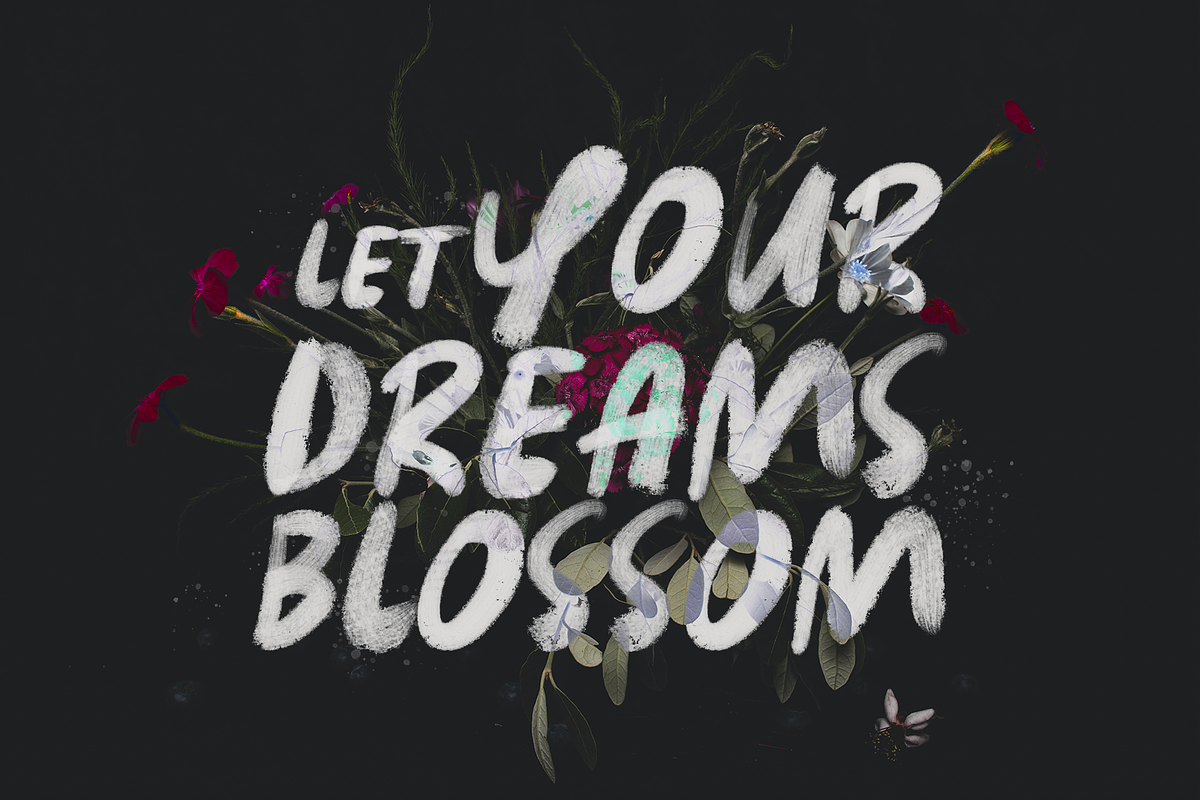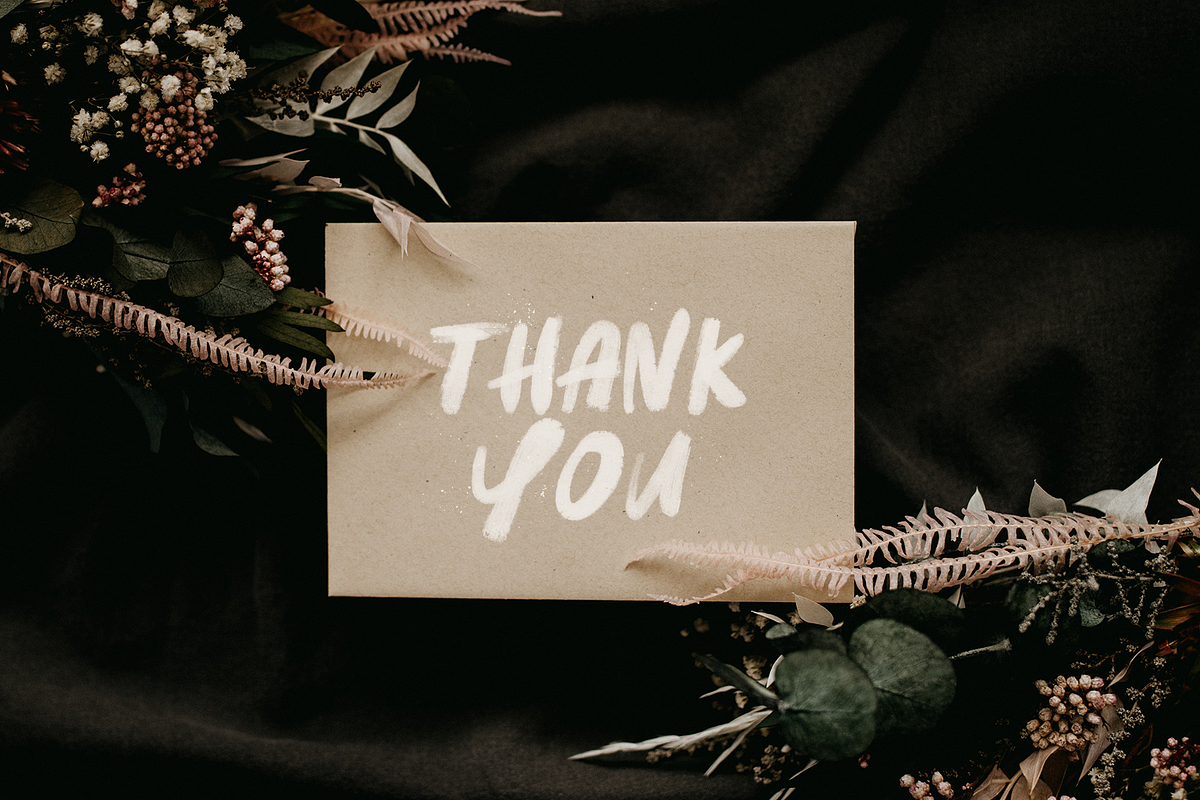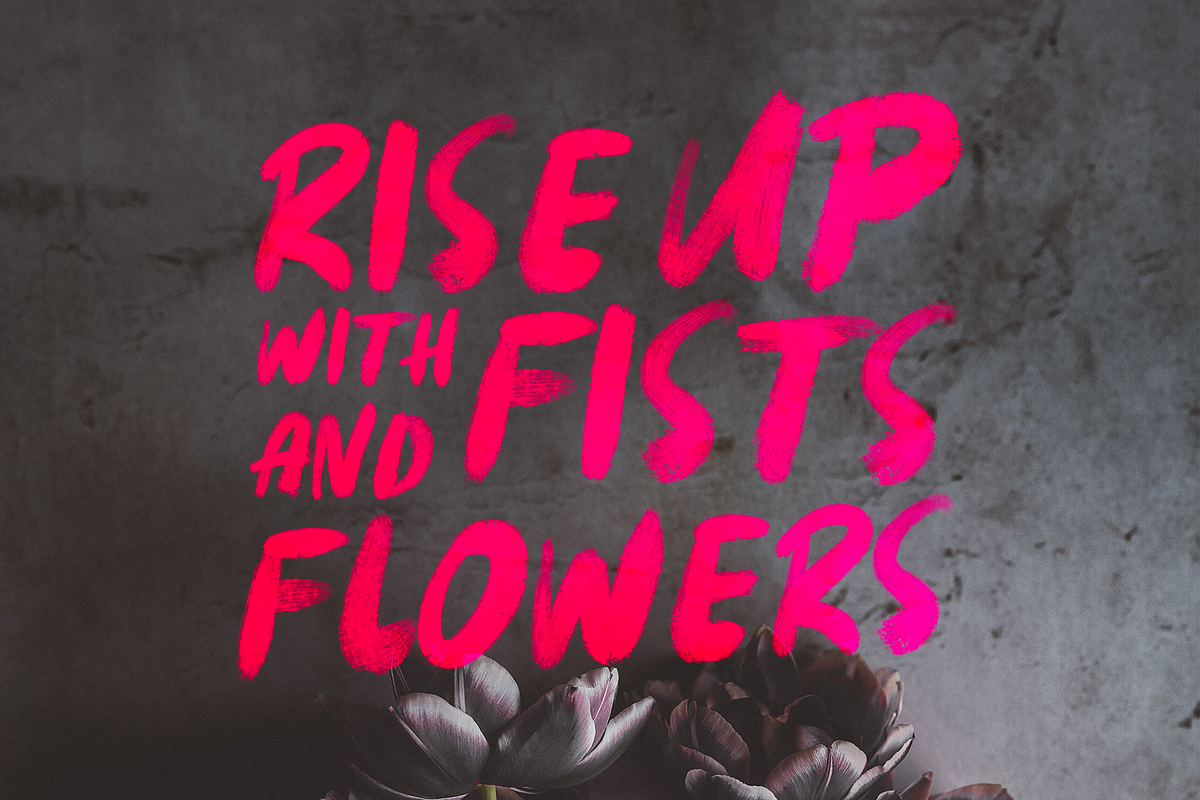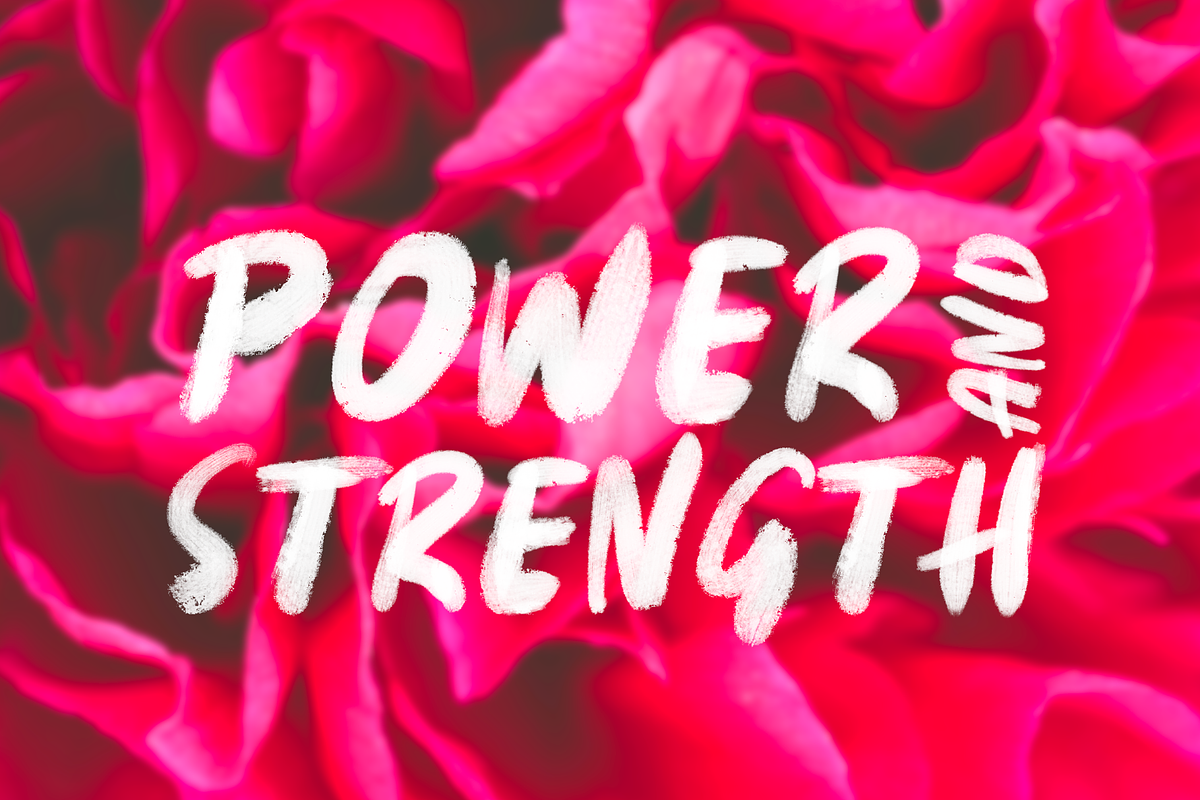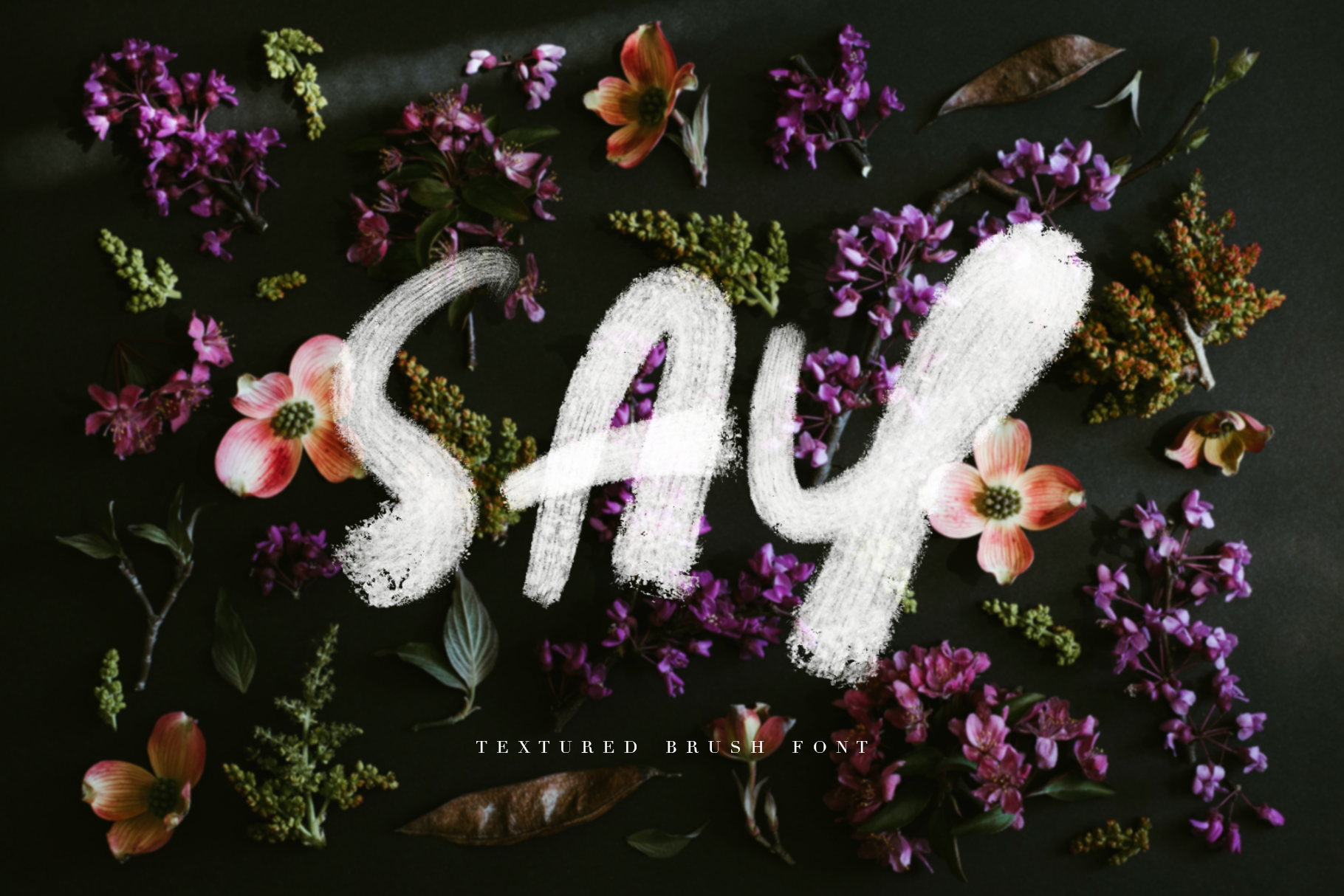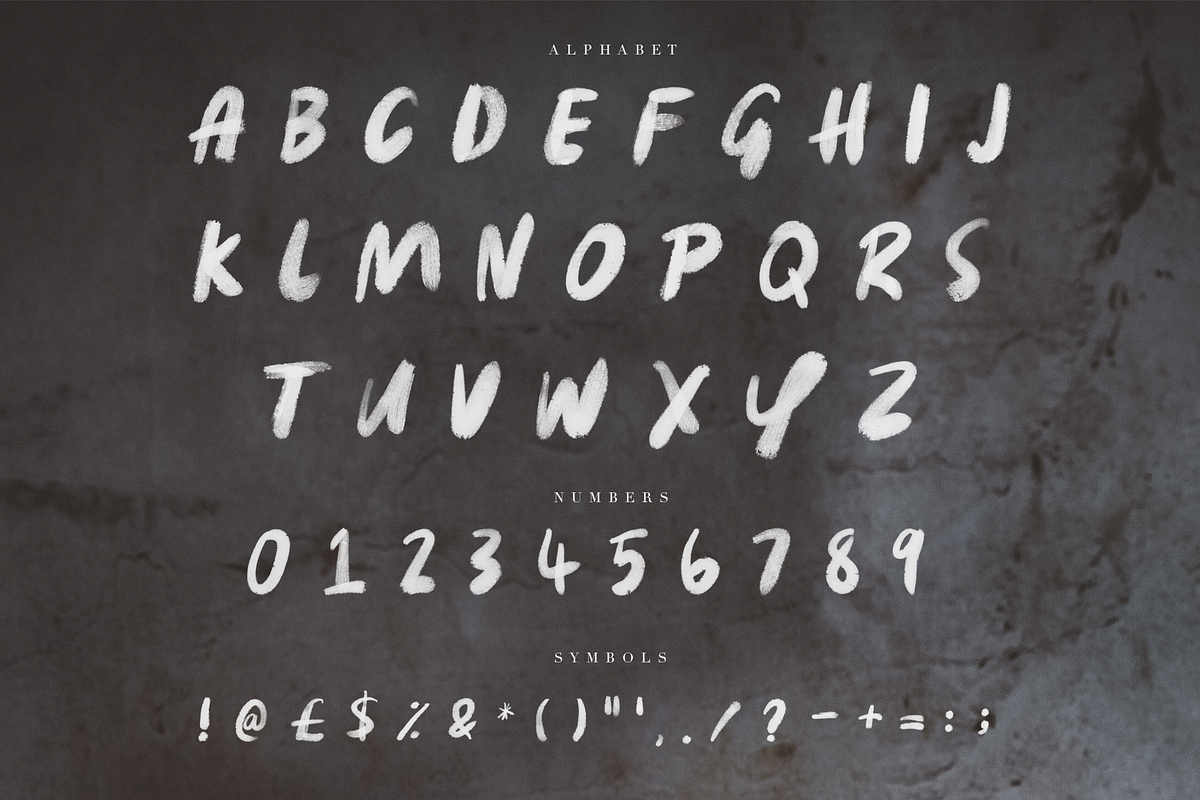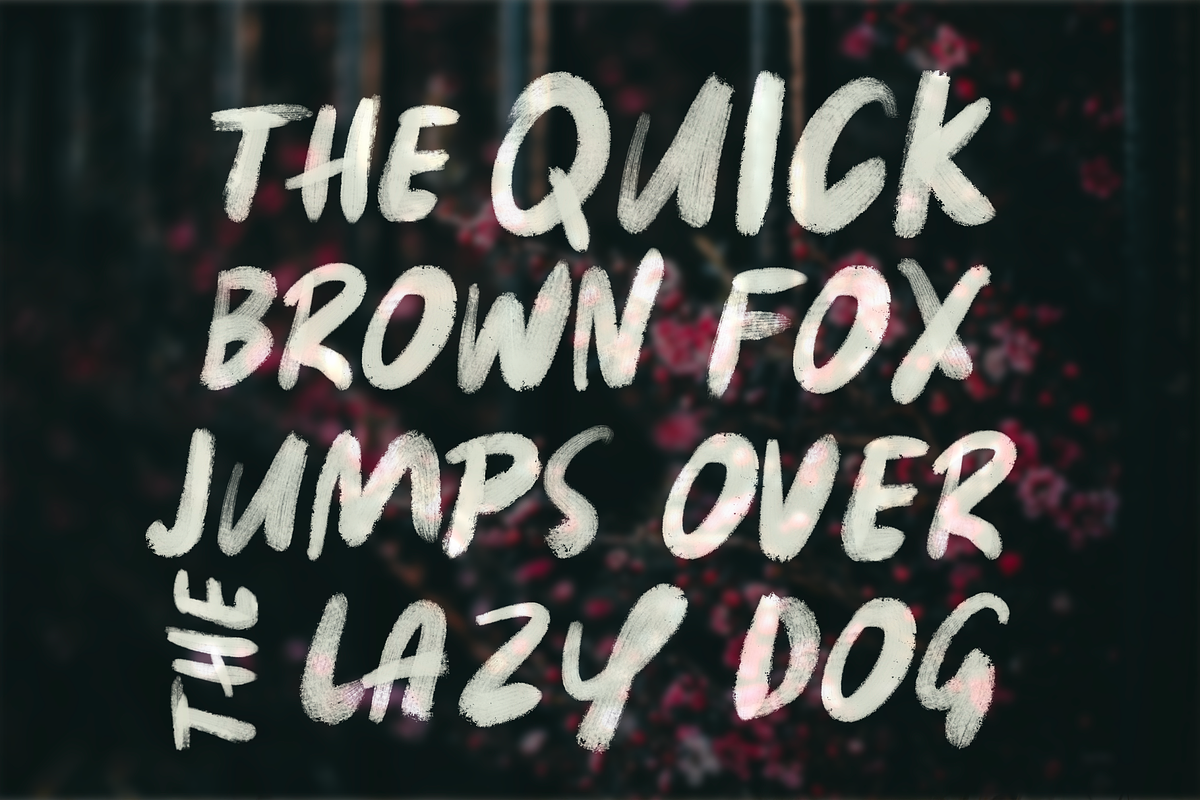
SAY | TEXTURED BRUSH FONT
Introducing SAY SVG Font; a modern, textured brush font that's bold and versatile.
SAY Font is available in all caps and includes a selection of symbols. SVG Fonts or colour fonts are a new format that allow for detail and texture not previously seen. SAY font has been created to give a realistic hand-painted feel and keeps its definition when scaling up.